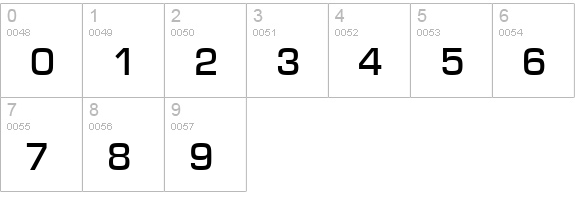
EurostileTMed is a versatile and modern sans-serif font that exudes a strong and authoritative presence. With its geometric design and clean lines, this typeface is perfect for conveying a sense of professionalism and sophistication in various design projects. Whether used for headlines, logos, or body text, EurostileTMed stands out for its bold and sleek appearance. What makes EurostileTMed even more appealing is that it is available for free download at FontsMarket.com. This means you can easily access this stylish font to elevate your designs without breaking the bank. Don't miss out on the opportunity to add EurostileTMed to your font collection and bring a touch of contemporary elegance to your projects.